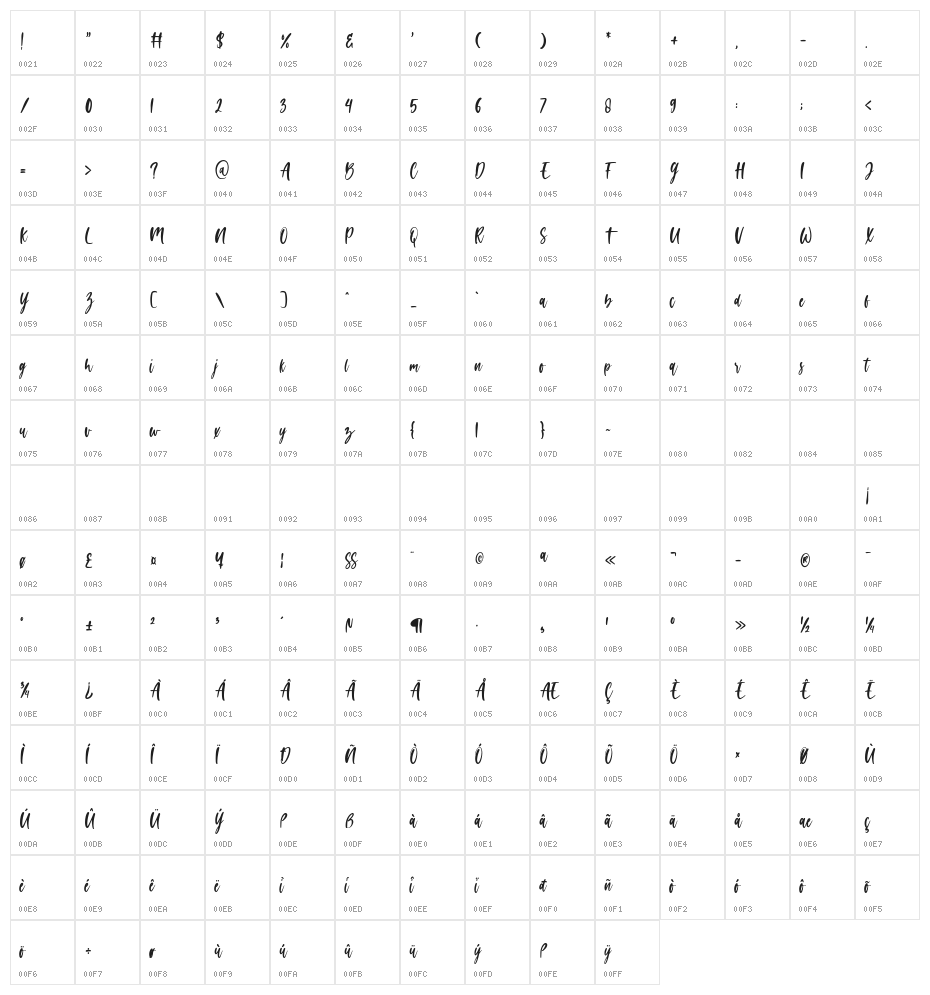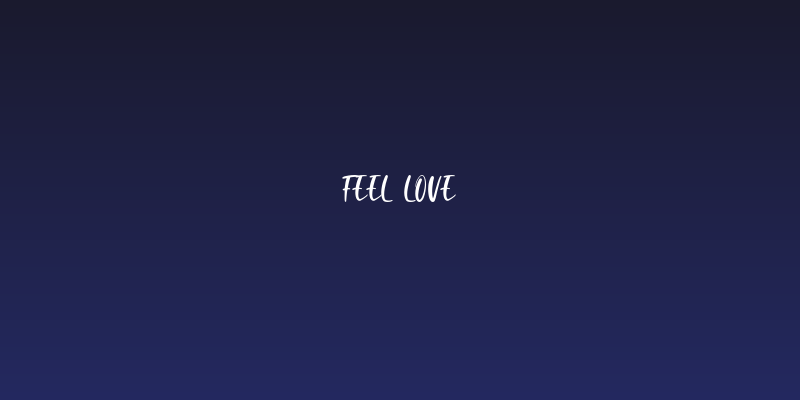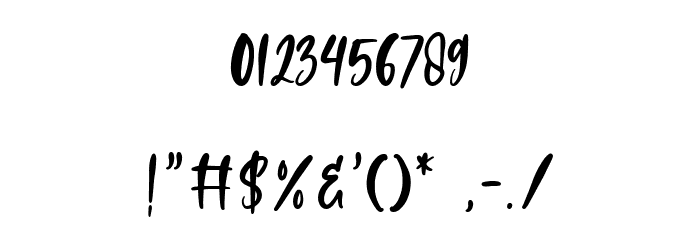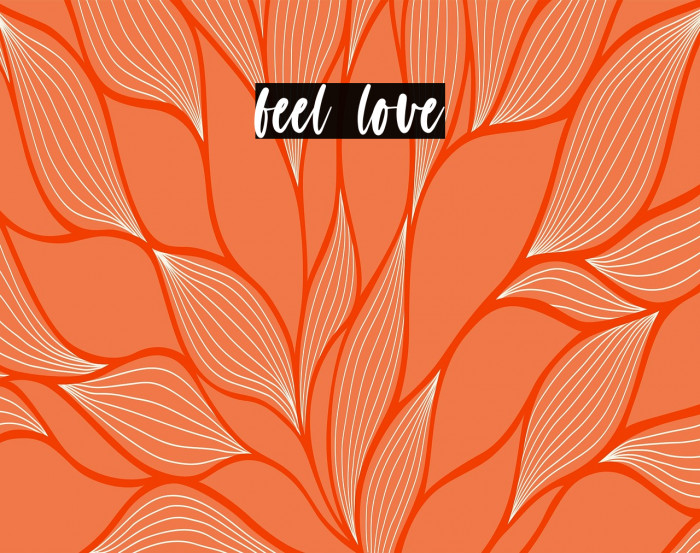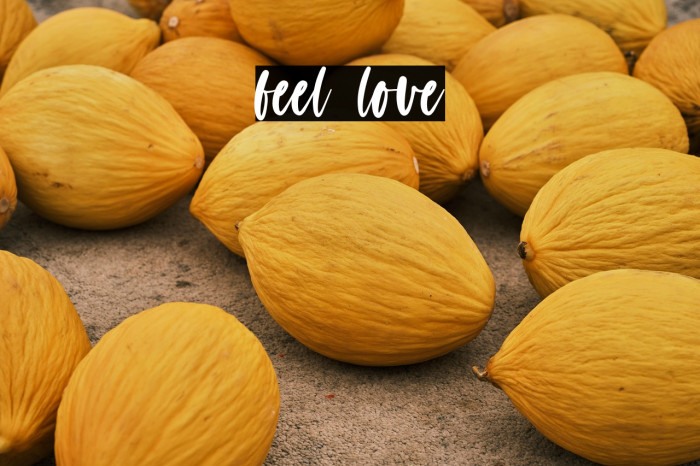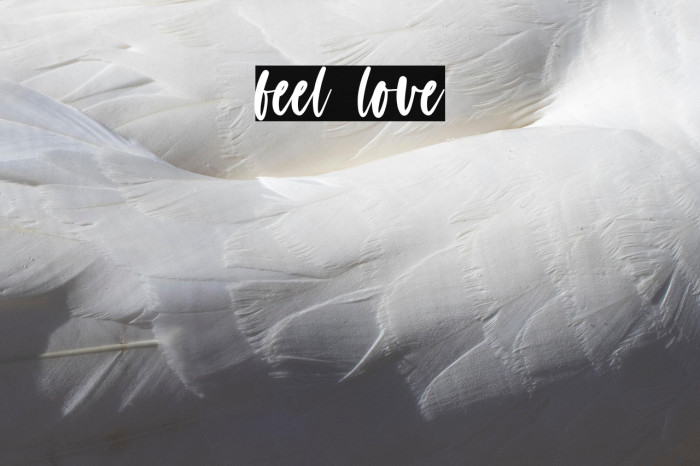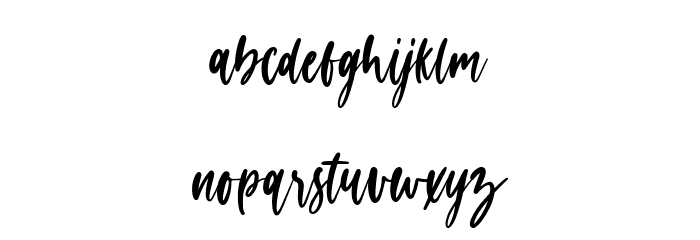
feel love Font
feel love Description
This font features a lively and expressive handwritten style, characterized by fluid strokes and a natural, flowing appearance. The letters are slightly slanted, adding a dynamic and energetic feel. The uppercase characters are bold and prominent, while the lowercase letters maintain a consistent rhythm and balance. The numbers and special characters complement the overall aesthetic, providing a cohesive look. This font's organic and personal touch makes it ideal for projects that require a warm and inviting tone.